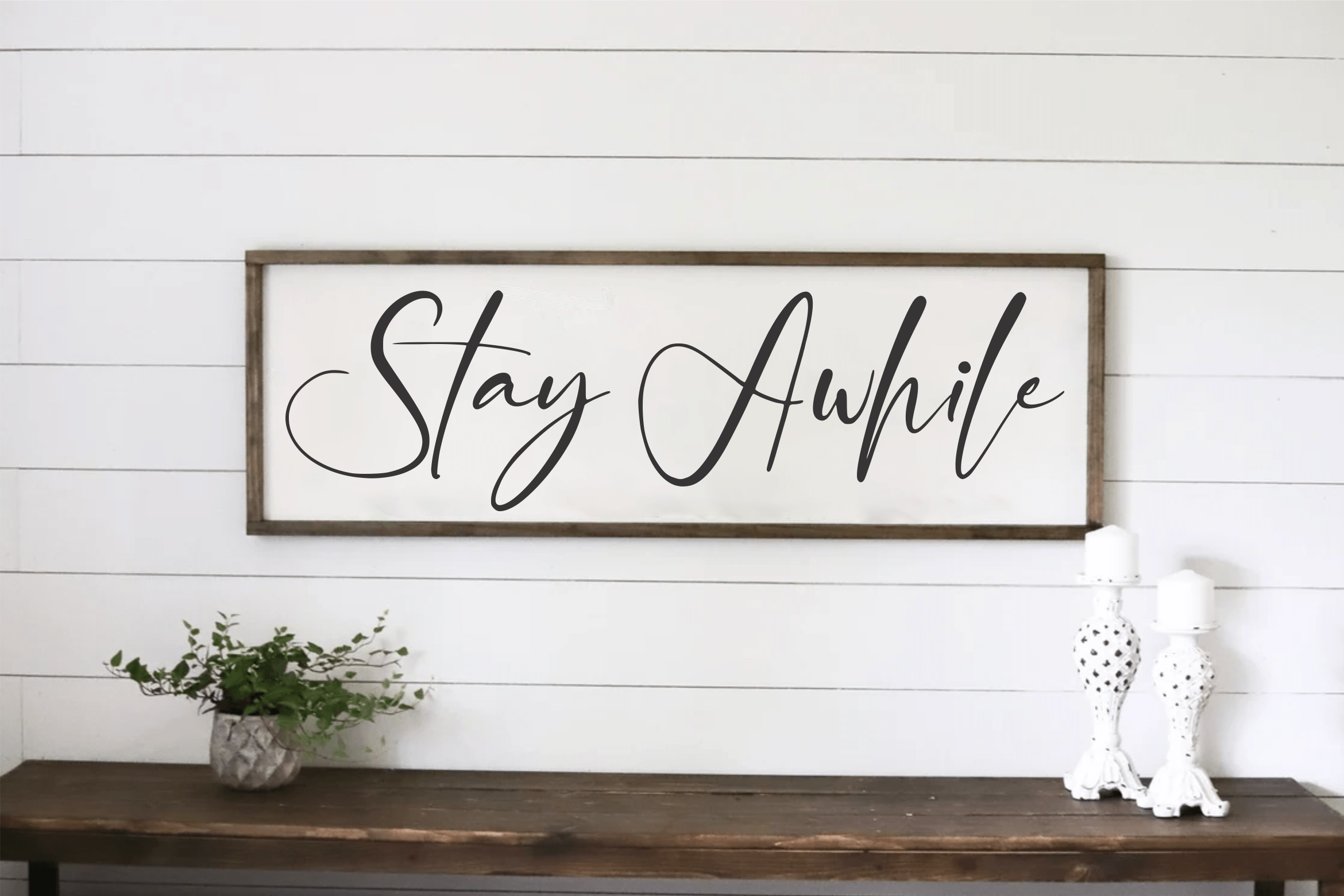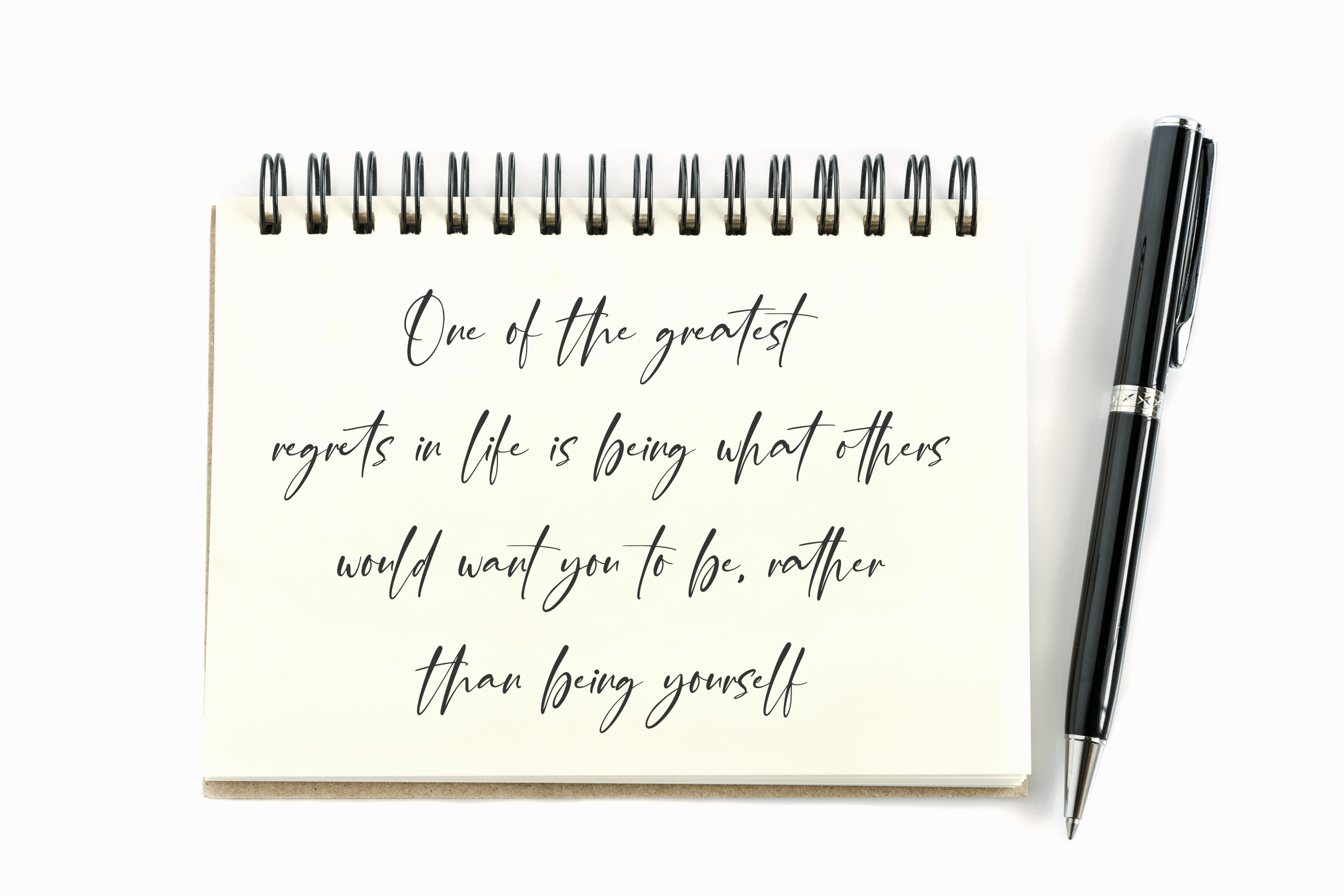
Hallbothy Script Font
This is a Handwritten Stylish Font. Hallbothy is perfect for product packaging, branding project, megazine, social media, wedding, or just used to express words above the background. This font includes OTF & TTF, Hallbothy also multilingual support.